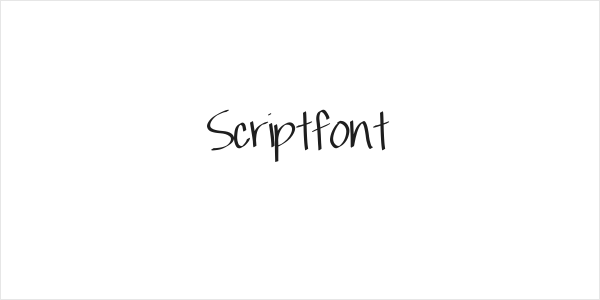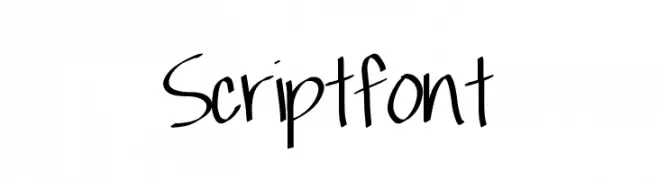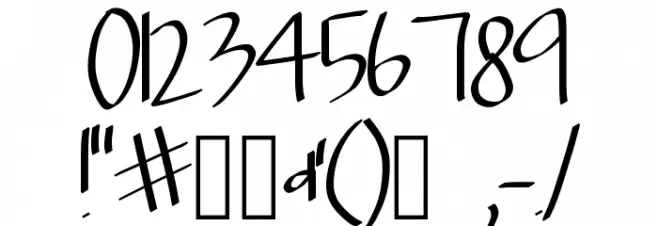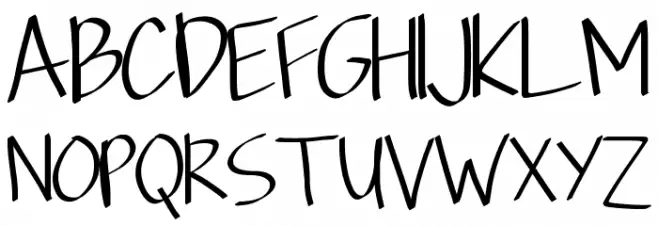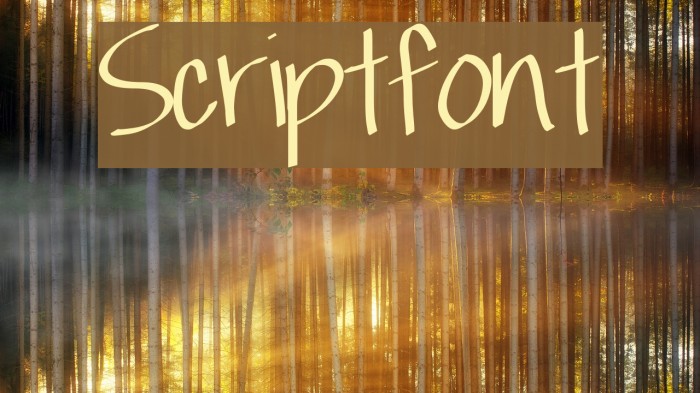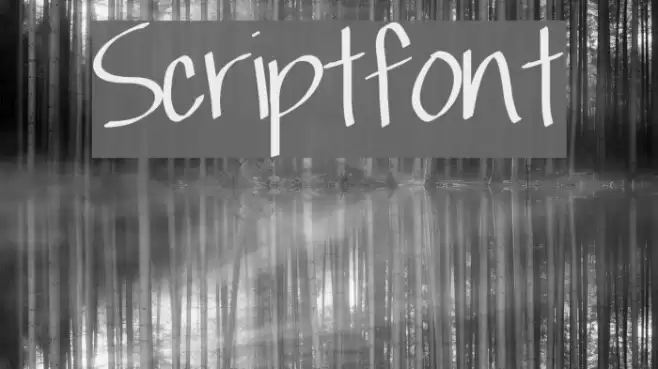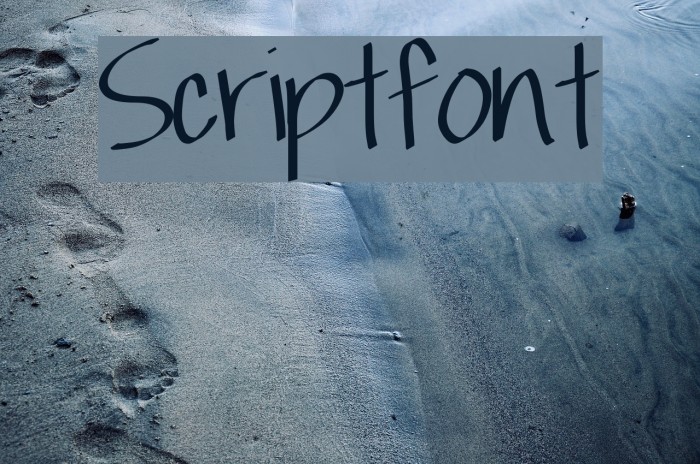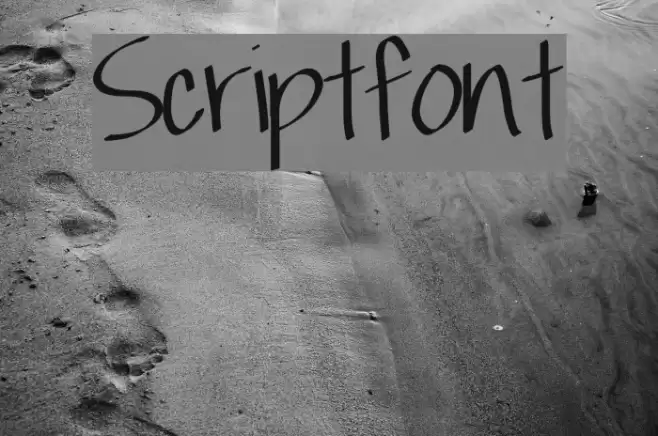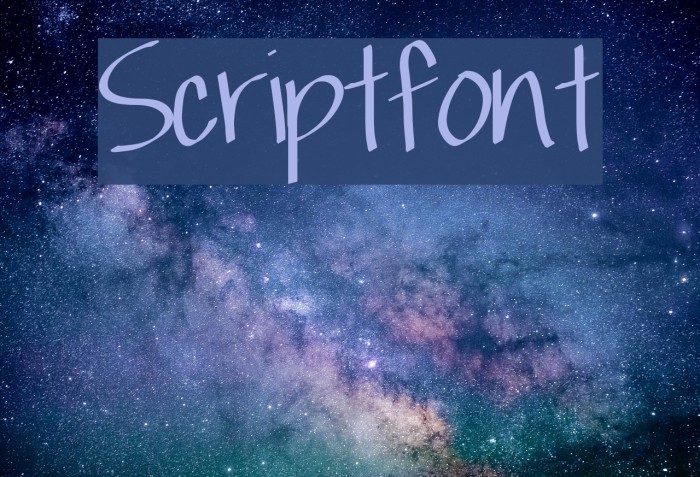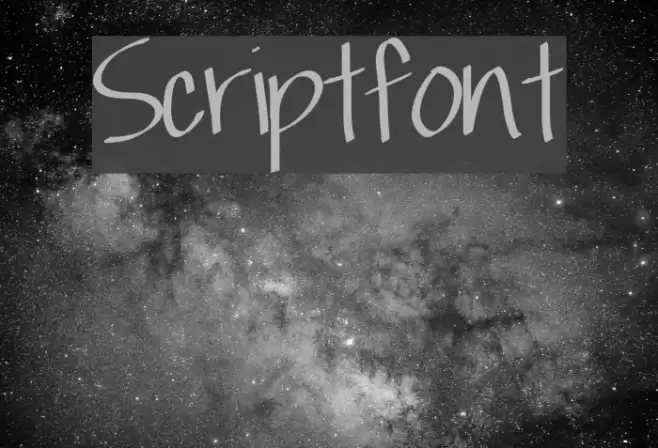
Scriptfont Font
Scriptfont Description
This font features a playful and casual handwritten style, characterized by its irregular and dynamic strokes. The letters are slightly slanted, giving it a lively and informal appearance. The uppercase and lowercase letters maintain a consistent flow, with rounded edges and varying line thickness that add to its charm. The numbers and special characters follow the same whimsical style, making it suitable for projects that require a personal touch. Its overall appearance is friendly and approachable, making it ideal for creative and informal designs.